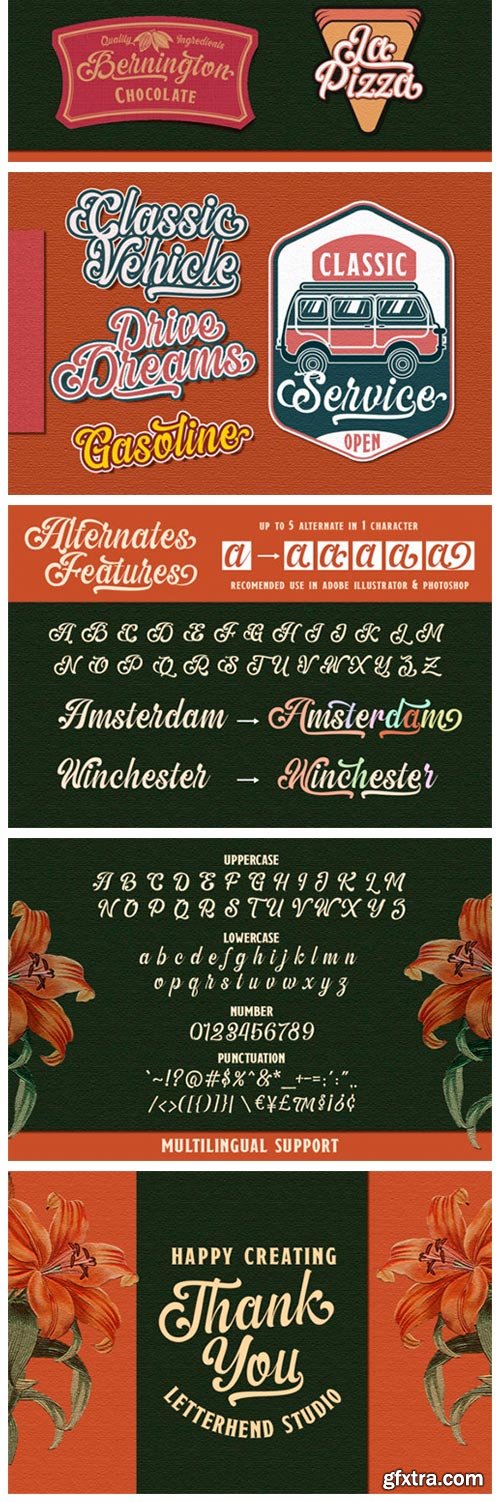
The Amberton Font
The Amberton is an elegant and classic handwritten font. It is PUA encoded which means you can access all of the glyphs and swashes with ease! It maintains its classy calligraphic influences while feeling contemporary and fresh. Fall in love with this font and bring your projects to the highest levels!